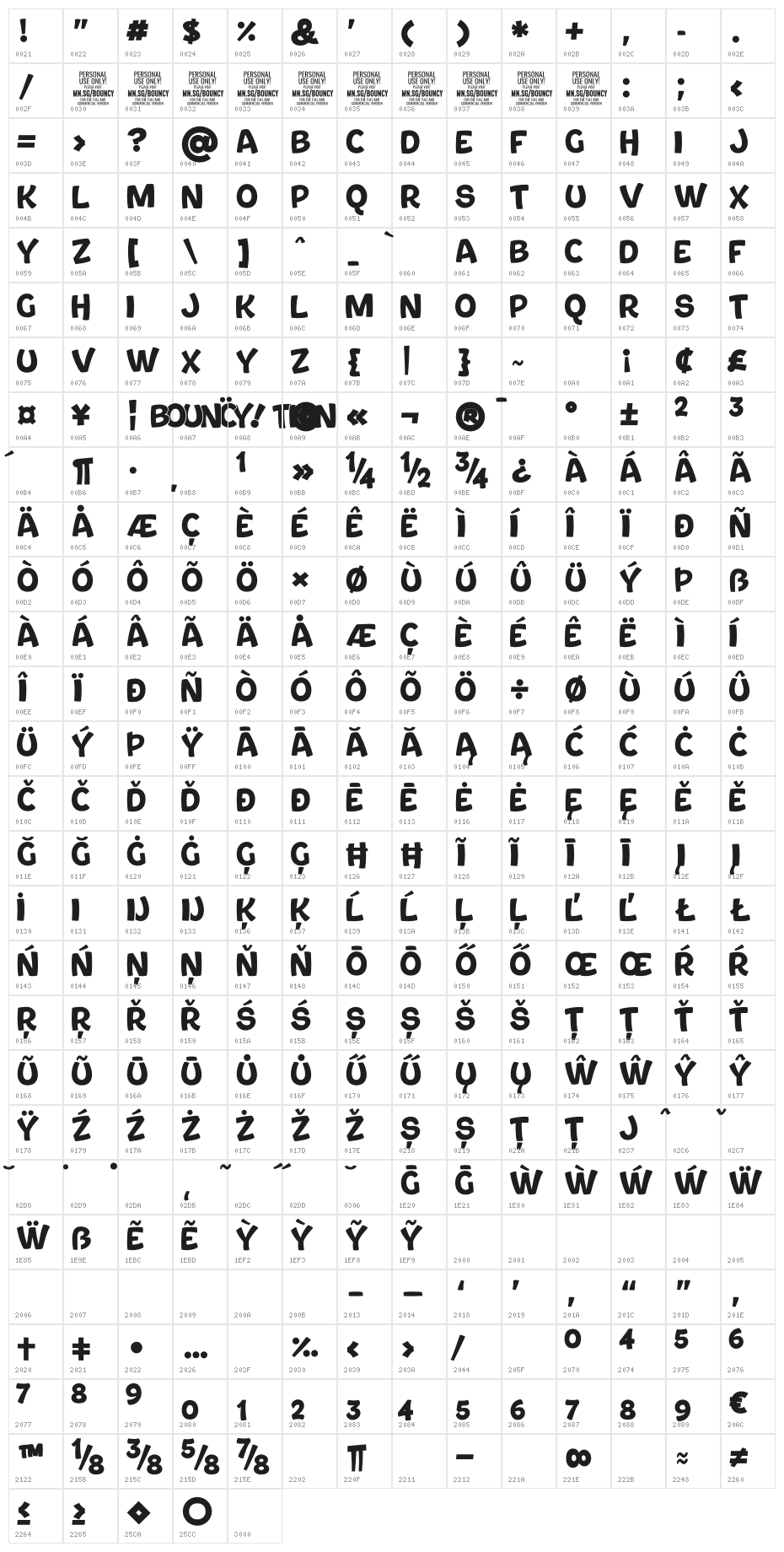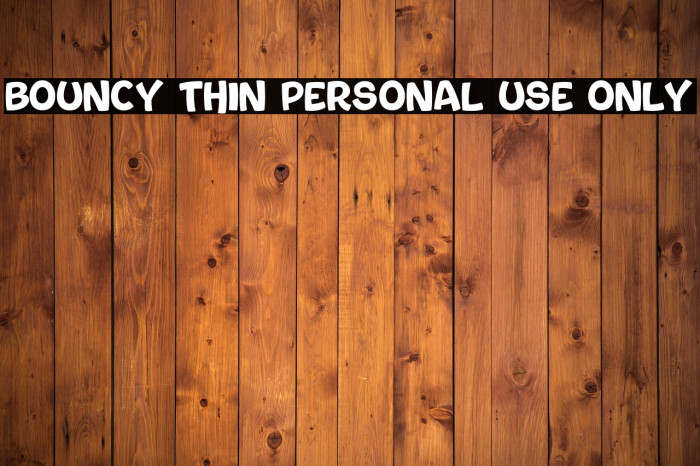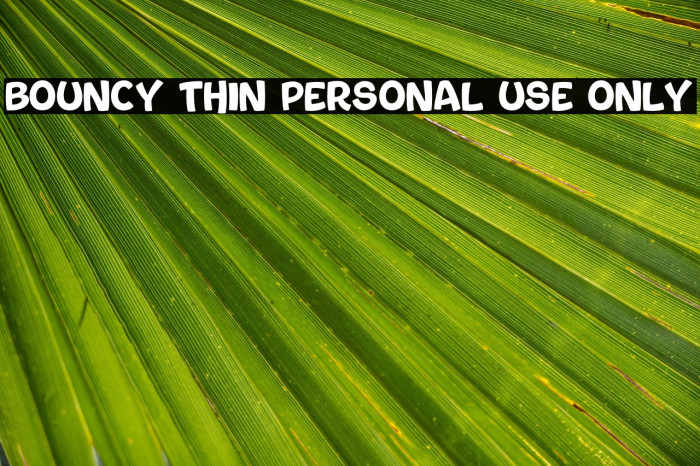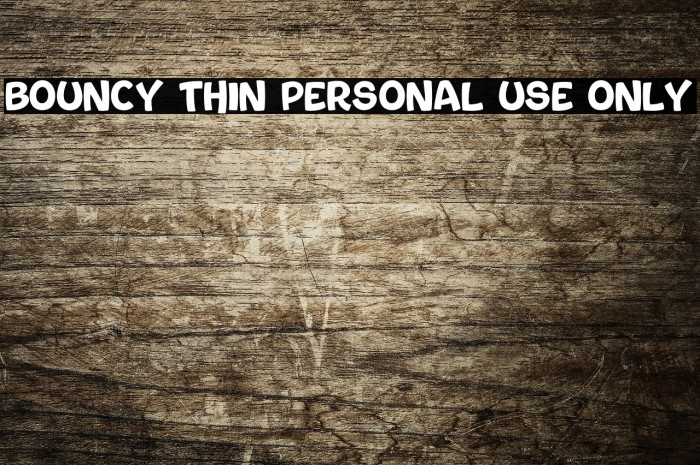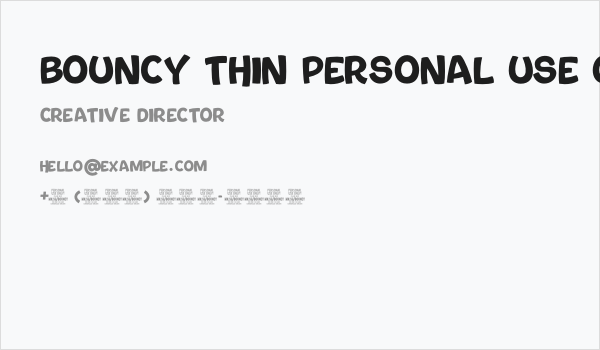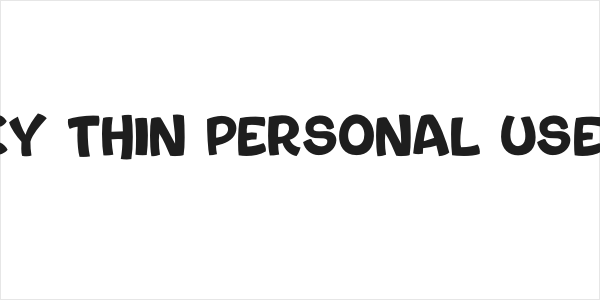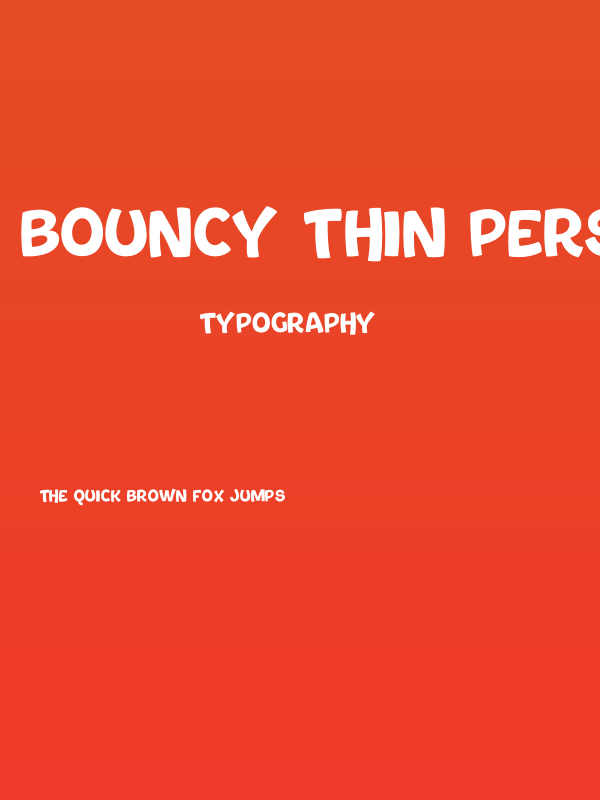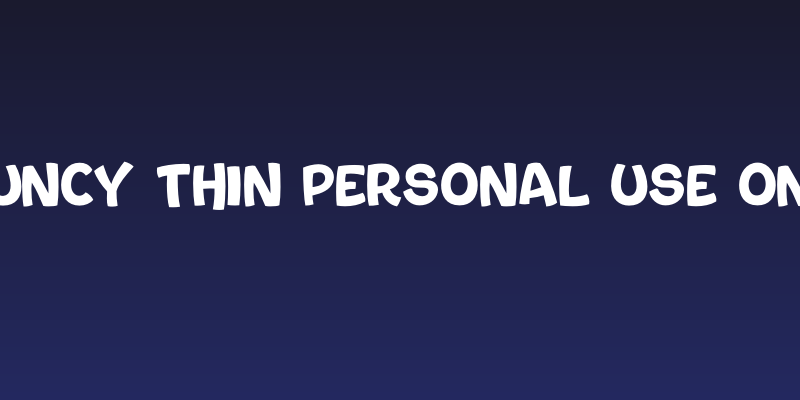
Bouncy Thin PERSONAL USE ONLY Font
Bouncy Thin PERSONAL USE ONLY Description
This playful and energetic font features a bouncy, irregular style that gives it a whimsical and fun appearance. The letters are bold and rounded, with a slight tilt that adds to their dynamic feel. The uppercase and lowercase characters maintain a consistent thickness, contributing to a cohesive look. The numbers and special characters follow the same lively design, making them suitable for creative projects. The font's unique style makes it stand out, perfect for capturing attention in designs that require a touch of personality and flair.
Overall StylePlayful, Whimsical
Proposed ProjectsIdeal for children's books, playful branding, party invitations, and creative posters.